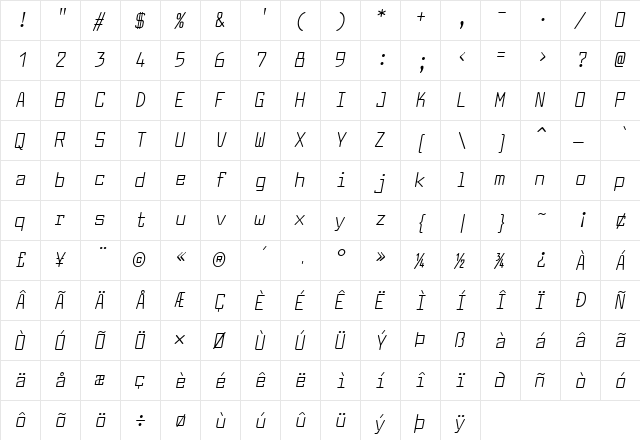
Larabiefont Condensed Italic Font Preview
Design Context for Larabiefont Condensed Typeface
Larabiefont Condensed takes a measured approach to typography — its balanced proportions and neutral character make it a reliable workhorse for both digital and print work. The dynamic lean of this cut emphasises speed and emphasis in any layout. The condensed width makes it efficient for tight spaces without sacrificing legibility.
Pro Tip: Use Larabiefont Condensed for emphasis, pull quotes, and subheadings where its slanted energy can add rhythm to the layout.